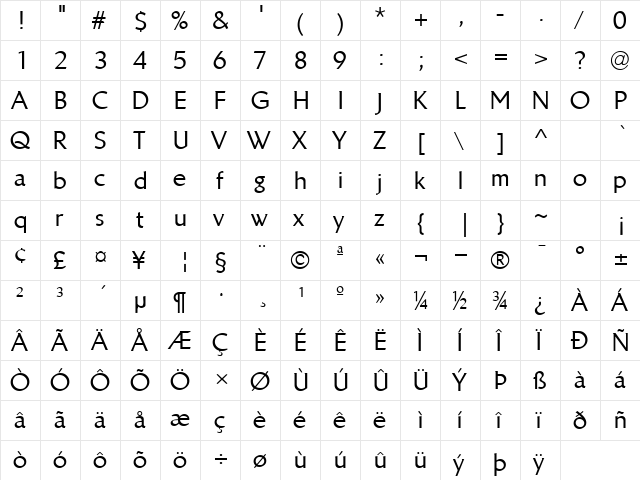
LTBrewery Medium Medium
Design Context for LTBrewery Medium Typeface
LTBrewery Medium is a composed and adaptable typeface that performs quietly and consistently across a wide range of design contexts.